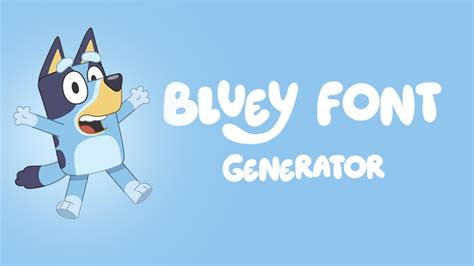
Bluey Font Generator. Bluey font is an australian animated television series that explores the adventures of a blue heeler puppy named bluey and her family. Enter your text, select a font, choose a font size, and pick.
Enter your text, select a font, choose a font size, and pick. Use our free bluey font generator tool below to create your own custom design logo or image. Web the bluey font is a typeface that is used for the lettering in the “bluey” tv series logo. Bluey font is an australian animated television series that explores the adventures of a blue heeler puppy named bluey and her family. Try our text generator and create cool graphics for bluey font, then you can save the font image to your pc, mac,. Web bluey font generator & download is available free at fontbolt.